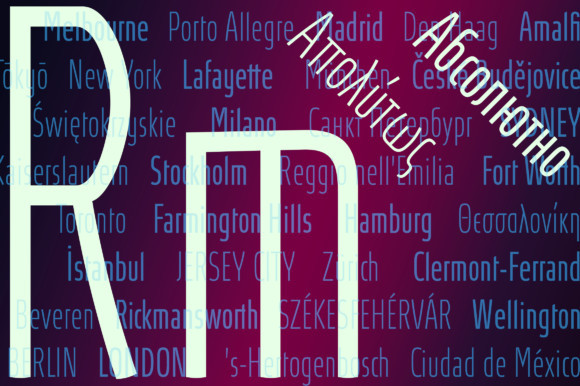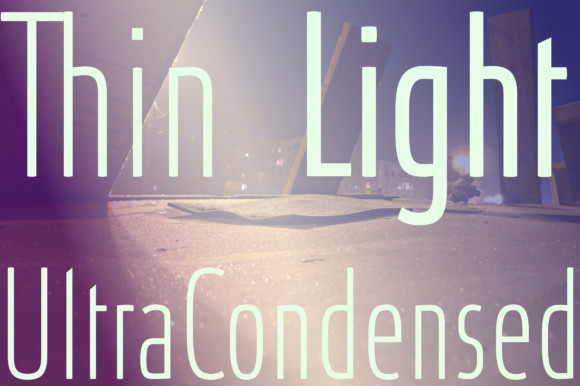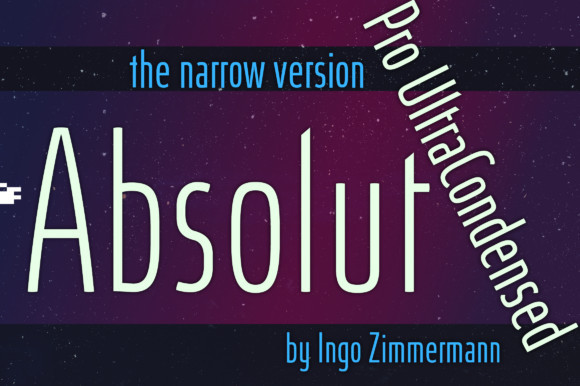
Absolut Pro Ultra Condensed Font
The modern sans serif for the new Millenium, reduced to the essentials: Absolut is a modern sans serif without compromise. The forms of Absolut are unconditionally modern!